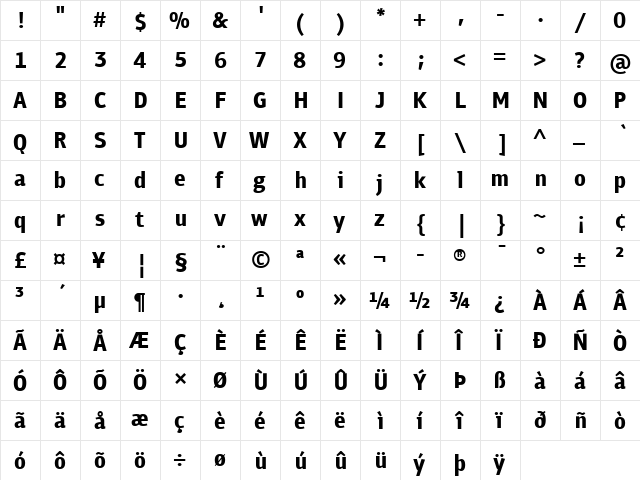
PF Bulletin Sans Pro Bold
| Foundry | Parachute蠗orldwide |
| Designer | Panos Vassiliou |
Design Context for PF Bulletin Sans Pro Typeface
PF Bulletin Sans Pro takes a measured approach to typography — its balanced proportions and neutral character make it a reliable workhorse for both digital and print work. Its bold stroke weight gives it real presence on the page.